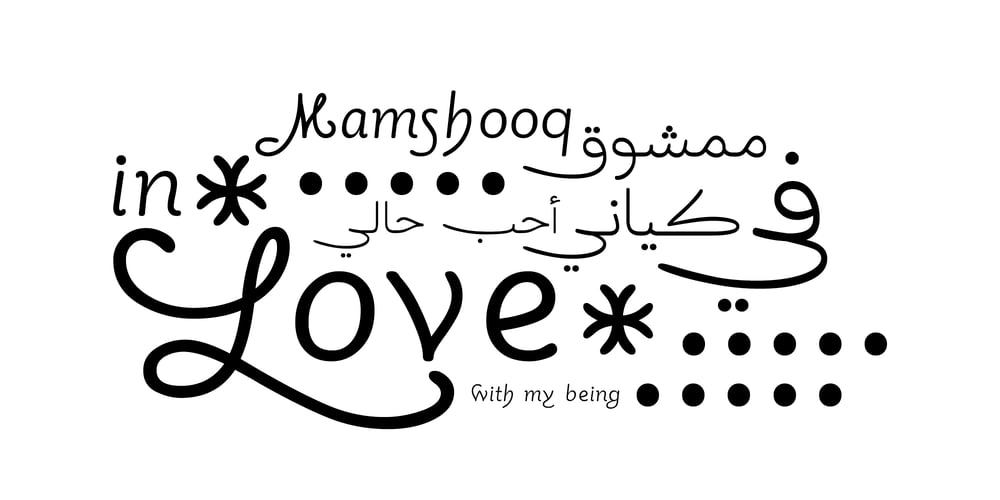
Mamshooq Font Family was designed by Kholoud Essawy and published by MAKYN. Mamshooq contains 1 styles and family package options. Mamshooq is a Bilingual Contemporary Typeface designed by Kholoud Khaled Essawy. It is classified as a script typeface, that is inspired by handwriting. It is characterized by having a monolinear stroke thickness, and the skeleton of the Arabic font is based on Naskhi calligraphic manuscripts. It is familiar, soft, heartfelt and romantic looking typeface that has an honest voice that brings trust to the words and makes it comfortable for continuous reading.